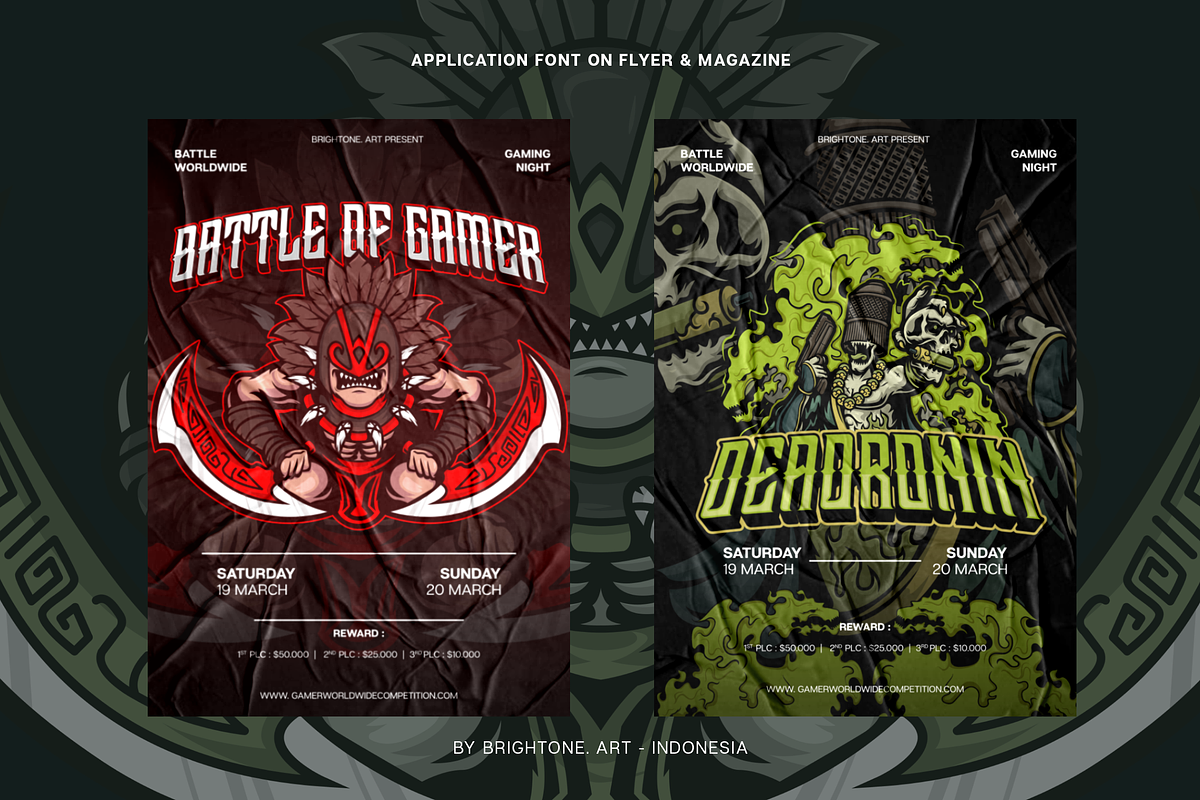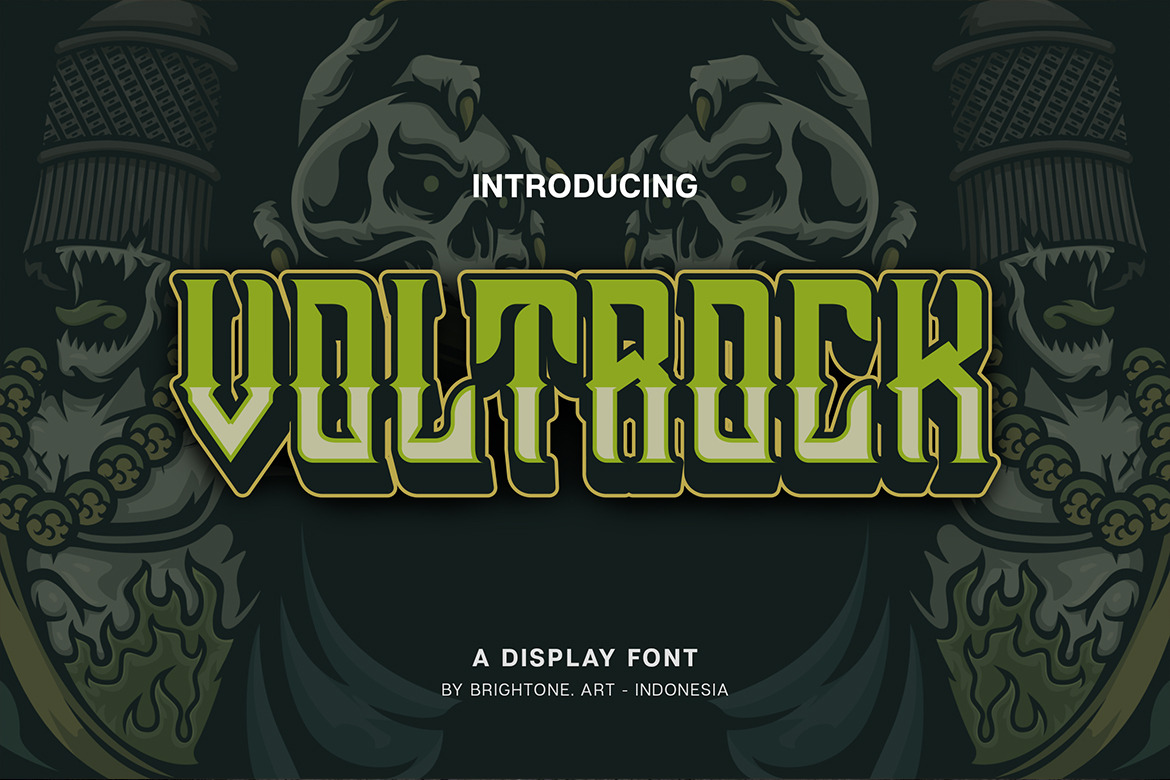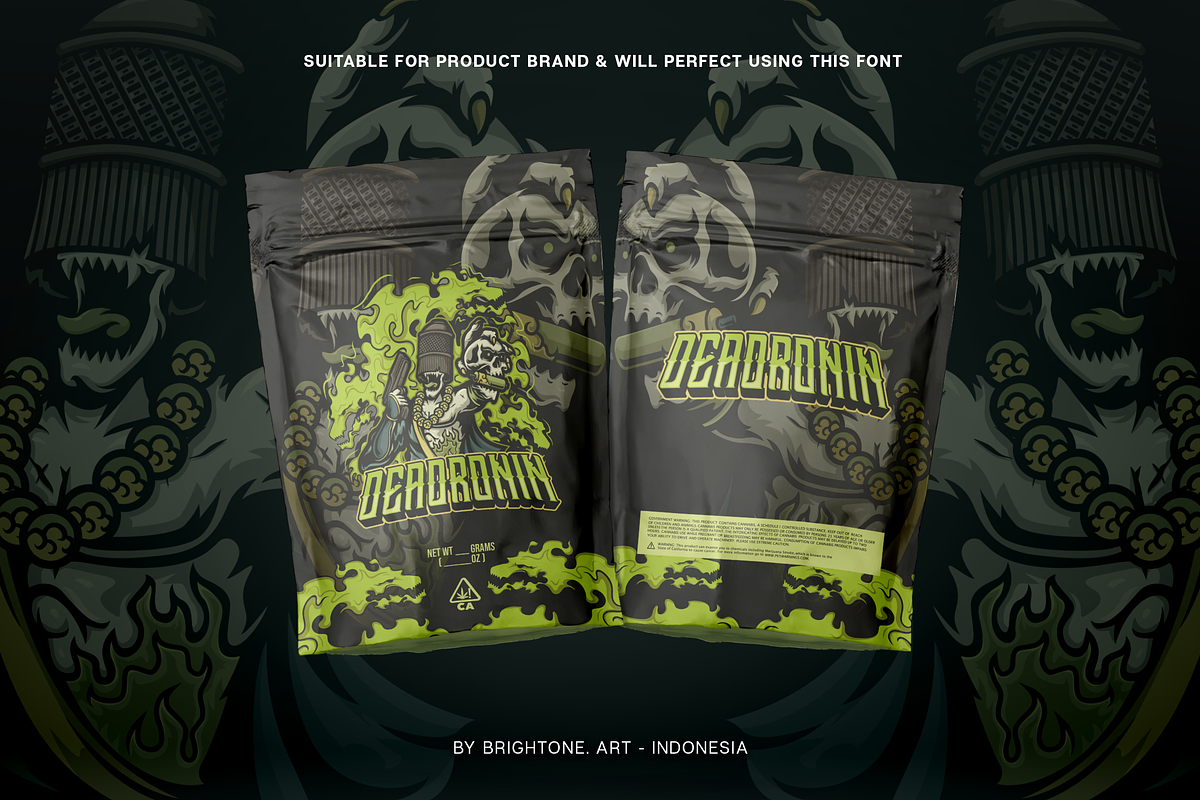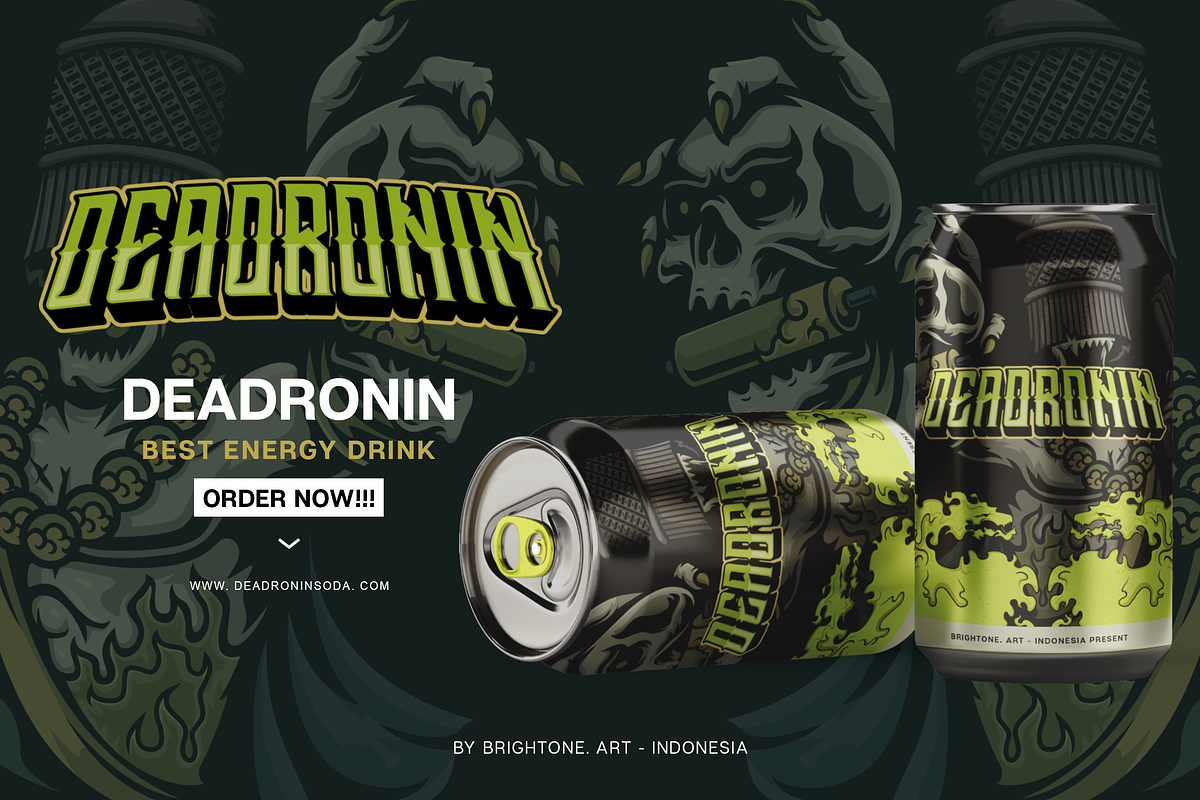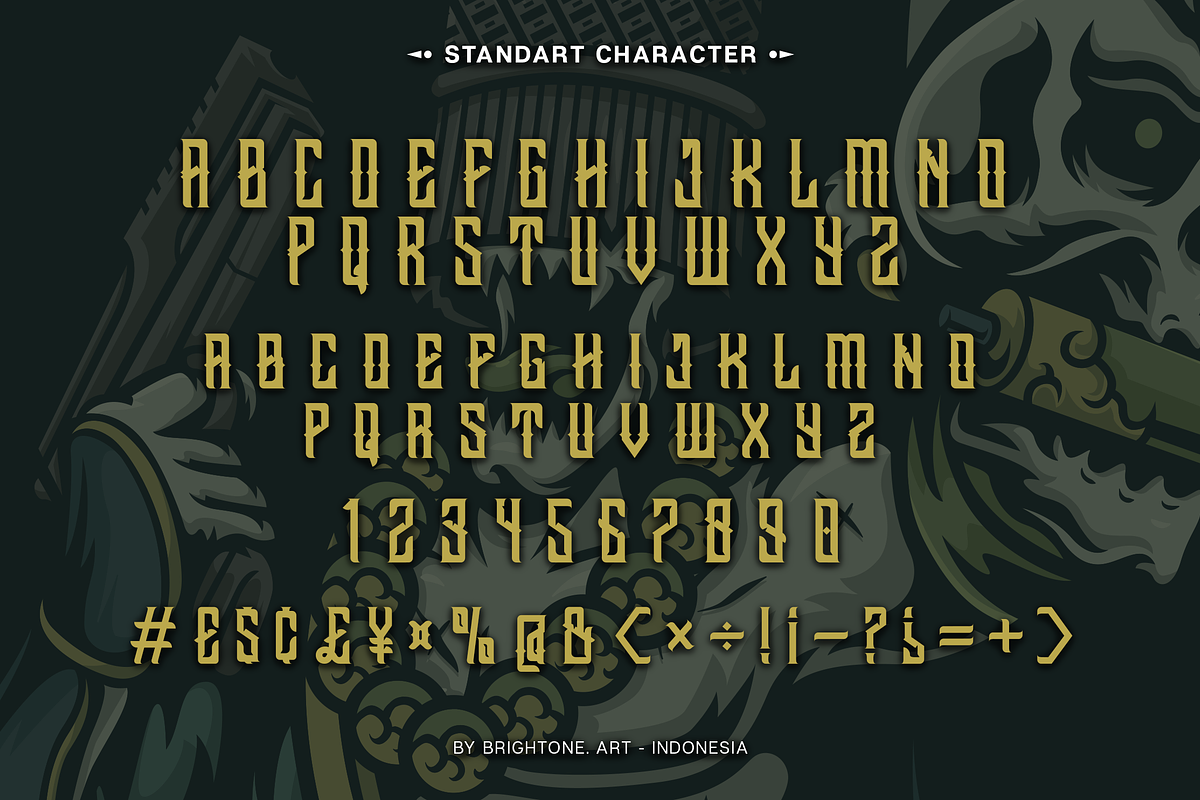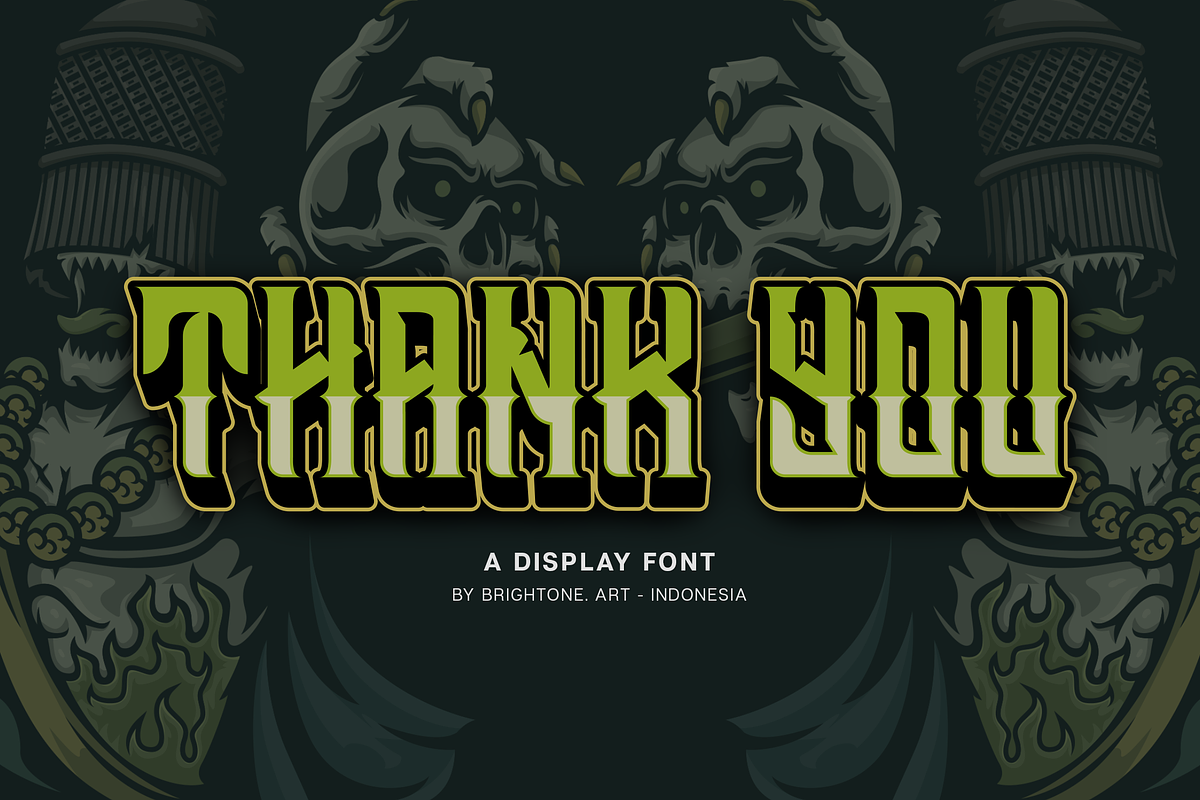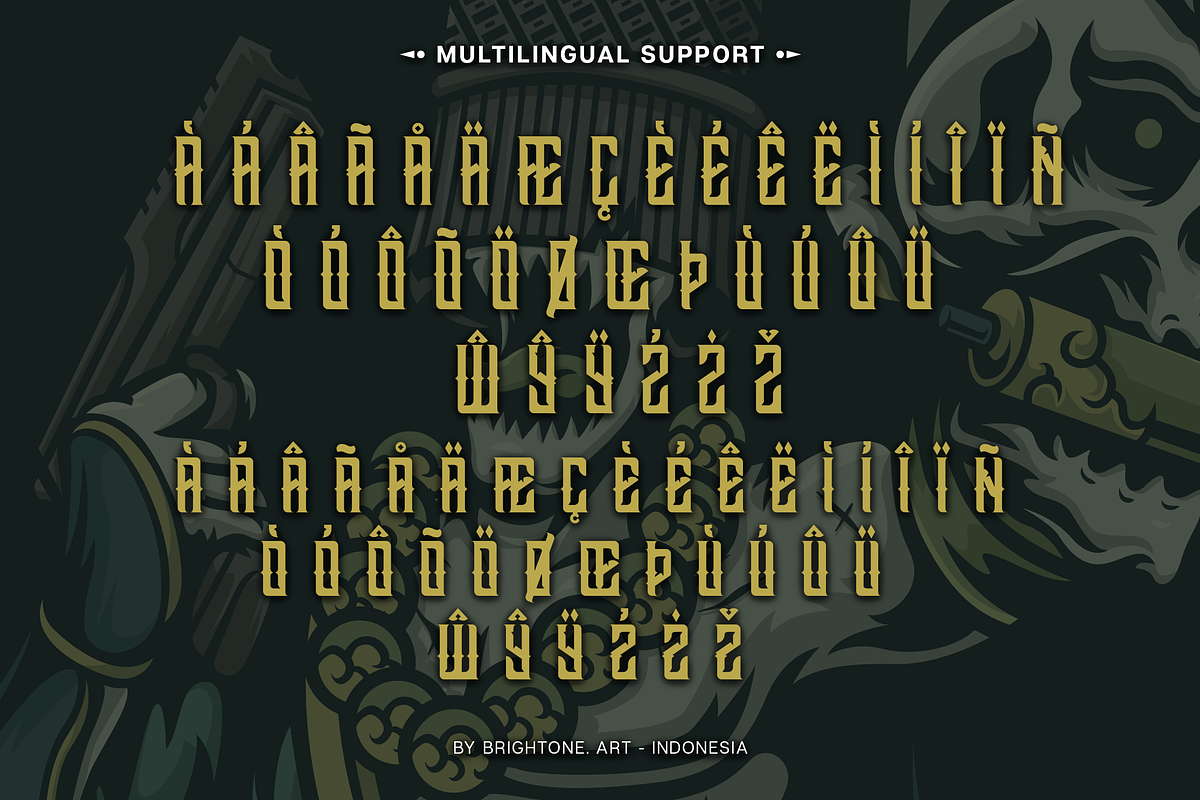
Voltrock - E-Sport Font
Voltrock is Modern font with Esport style includes uppercase letters, numerals, a large range of punctuation and multilingual support. Voltrock font with esport style for your logo lettering, posters, logo, label, packaging, sticker, branding etc